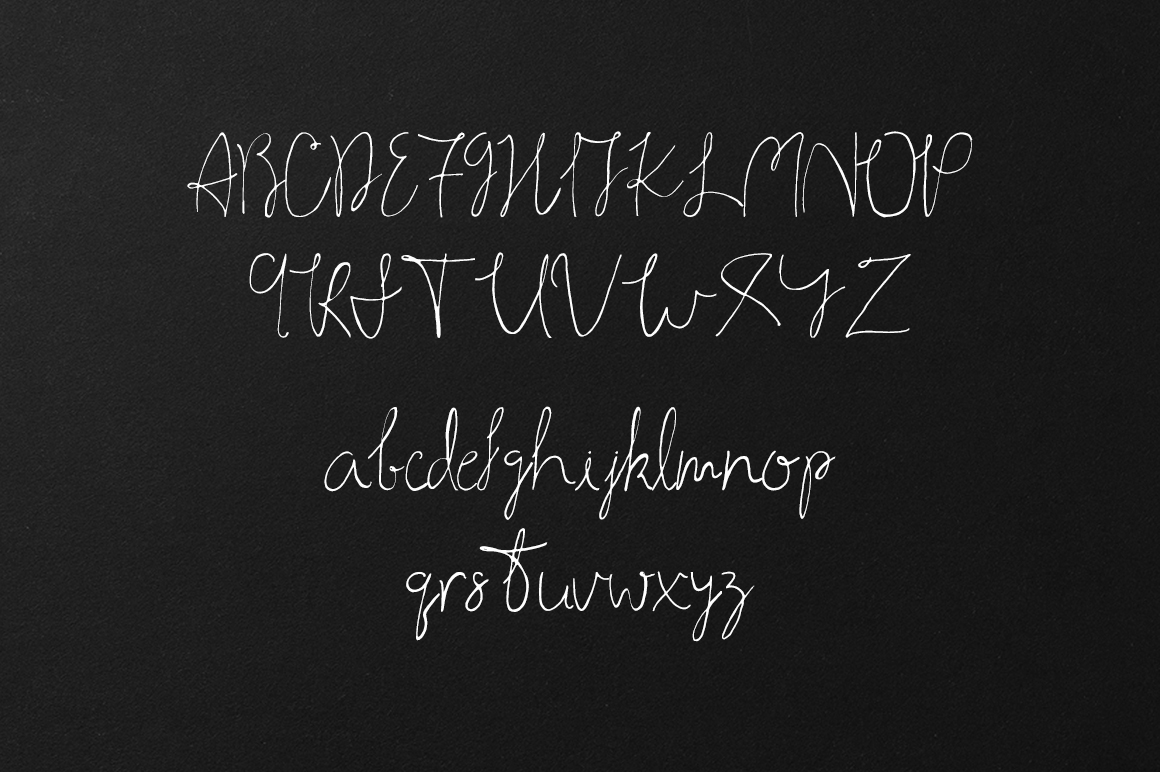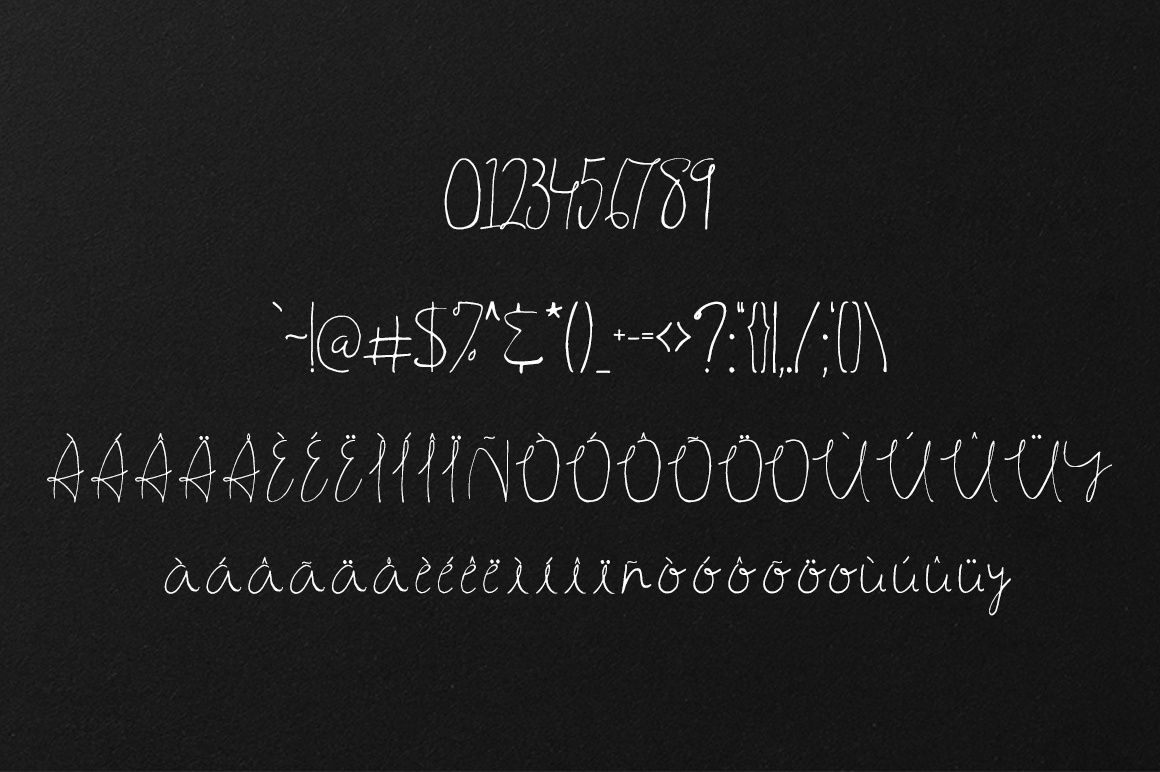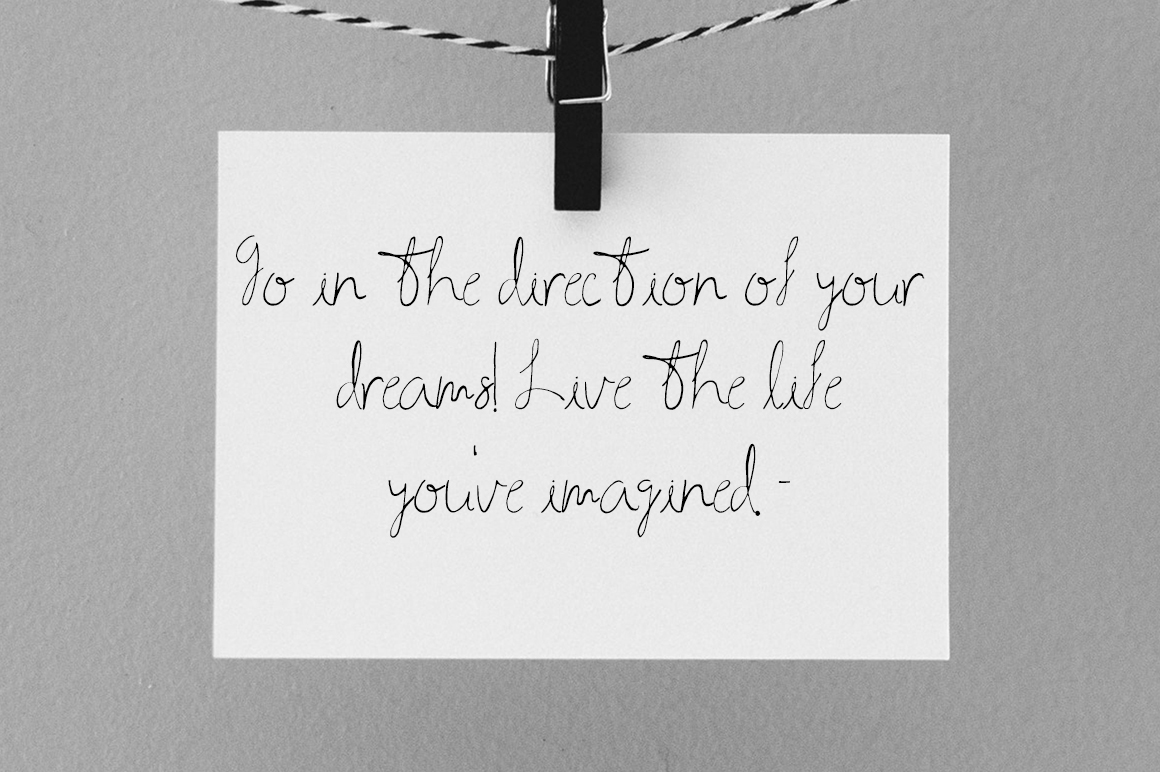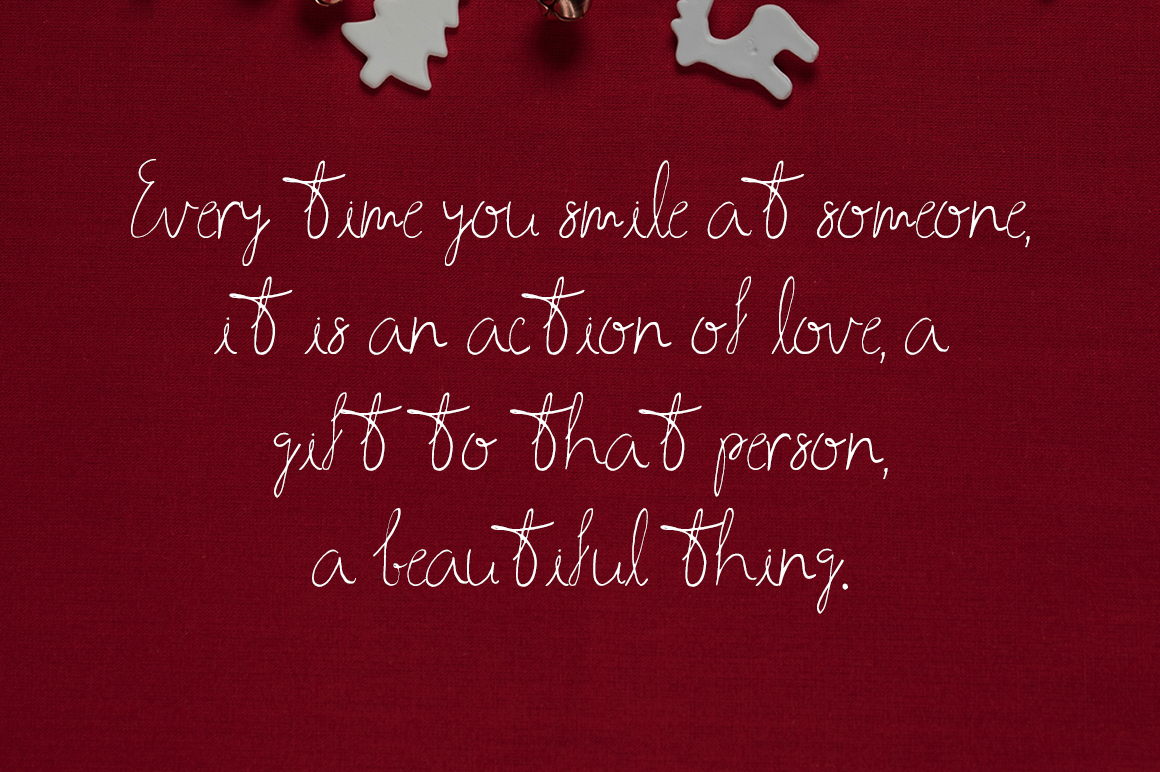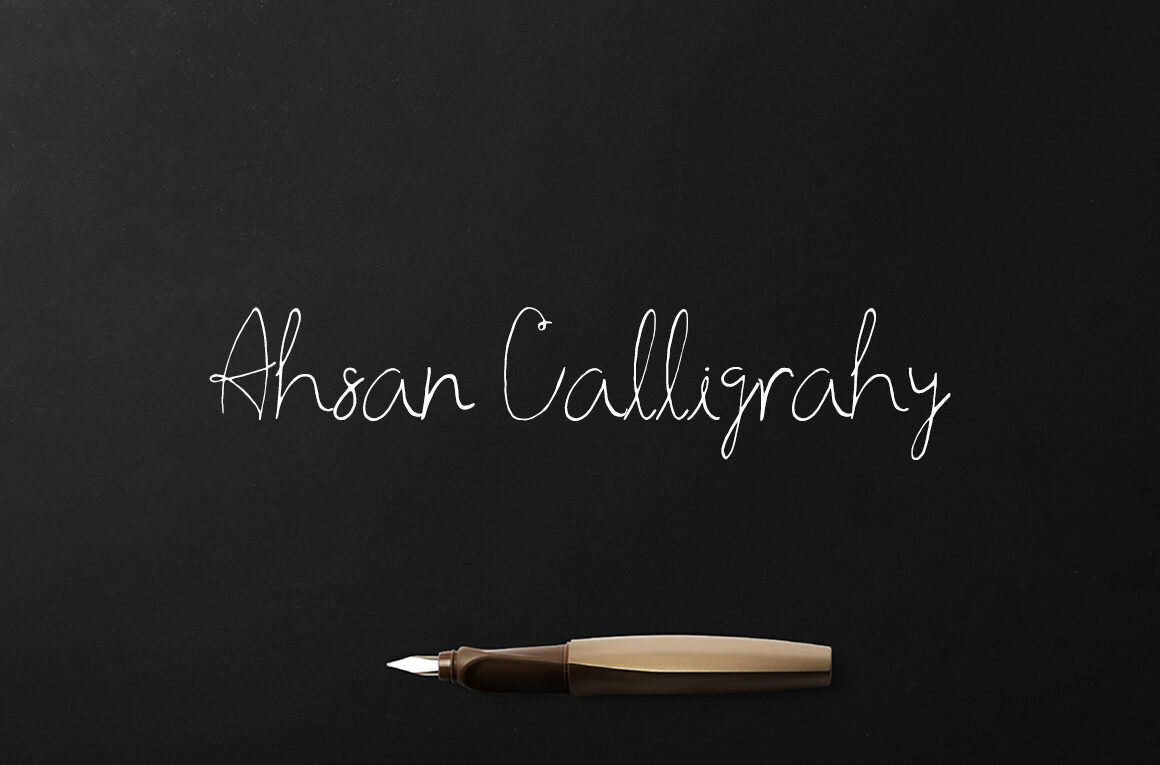
Ahsan Calligraphy Font: Elevate Your Designs with Elegance and Sophistication
In the realm of typography, few fonts manage to strike a balance between modernity and tradition as effortlessly as Ahsan Calligraphy. This stunning script font, with its contemporary and enlightened accents, has been making waves in the design community for its versatility, beauty, and extensive feature set. Whether you’re a seasoned designer or a crafting enthusiast, Ahsan Calligraphy is poised to become your go-to choice for a wide array of design projects.
Unleash Your Creativity with Ahsan Calligraphy
Ahsan Calligraphy is not just a font; it’s an experience. It offers a full set of gorgeous uppercase and lowercase letters, making it perfect for everything from elegant headings to personalized invitations. The inclusion of a comprehensive range of numerals ensures that your designs are not only aesthetically pleasing but also functionally versatile. Whether you’re working on a branding project, a wedding invitation, or a personal craft, Ahsan Calligraphy provides the elegance and sophistication needed to make your work stand out.
A Wealth of Features at Your Fingertips
One of the standout features of Ahsan Calligraphy is its extensive punctuation set and ligatures. Ligatures, which are special character combinations that join together to create a more harmonious and fluid look, are a hallmark of high-end calligraphy. The inclusion of a large range of punctuation marks means that you can use Ahsan Calligraphy for everything from formal documents to creative projects, ensuring consistency and style across the board.
Perfect for a Wide Range of Designs
The true power of Ahsan Calligraphy lies in its adaptability. This script font is not confined to a single type of project; rather, it can elevate a wide range of designs. Here are just a few examples of how you can use Ahsan Calligraphy:
- Branding and Logos: Create a lasting impression with a sophisticated and modern logo that speaks to your brand’s values and personality.
- Wedding Invitations: Add a touch of romance and elegance to your wedding invitations, making the moment even more special for the couple and their guests.
- Stationery and Greeting Cards: Stand out from the crowd with beautifully designed stationery and greeting cards that reflect your personal style or brand identity.
- Web Design: Enhance your website’s aesthetic appeal with a stylish font that improves readability and user experience.
- Advertising and Marketing Materials: Elevate your advertising and marketing materials with a professional and contemporary look that captures attention.
Why Choose Ahsan Calligraphy?
In a sea of fonts, Ahsan Calligraphy stands out for several reasons:
- Contemporary yet Timeless: Its design strikes a perfect balance between modern appeal and timeless elegance, ensuring your designs are both current and enduring.
- Versatility: With its comprehensive set of characters, punctuation, and ligatures, Ahsan Calligraphy can be used across a multitude of projects.
- Legibility: Despite its script nature, Ahsan Calligraphy maintains a high level of legibility, making it suitable for both headings and body text.
Ahsan Calligraphy is more than just a font; it’s a tool that unlocks a world of creative possibilities. Its blend of contemporary accents, extensive feature set, and elegant design makes it an indispensable asset for designers and crafters alike. Whether you’re looking to add a touch of sophistication to your branding, create memorable invitations, or simply explore new avenues of creativity, Ahsan Calligraphy is the perfect choice. Embrace the beauty and versatility of Ahsan Calligraphy and watch your designs transform into stunning works of art.